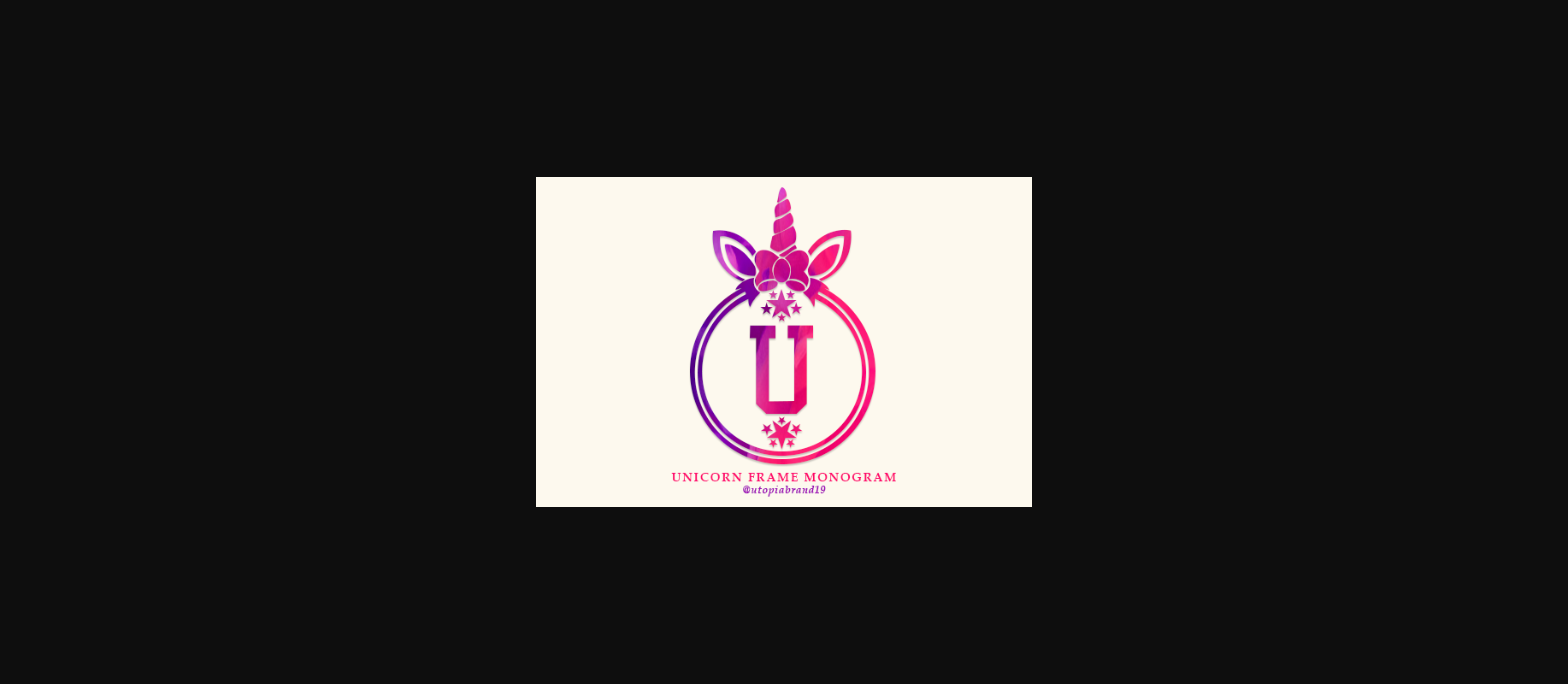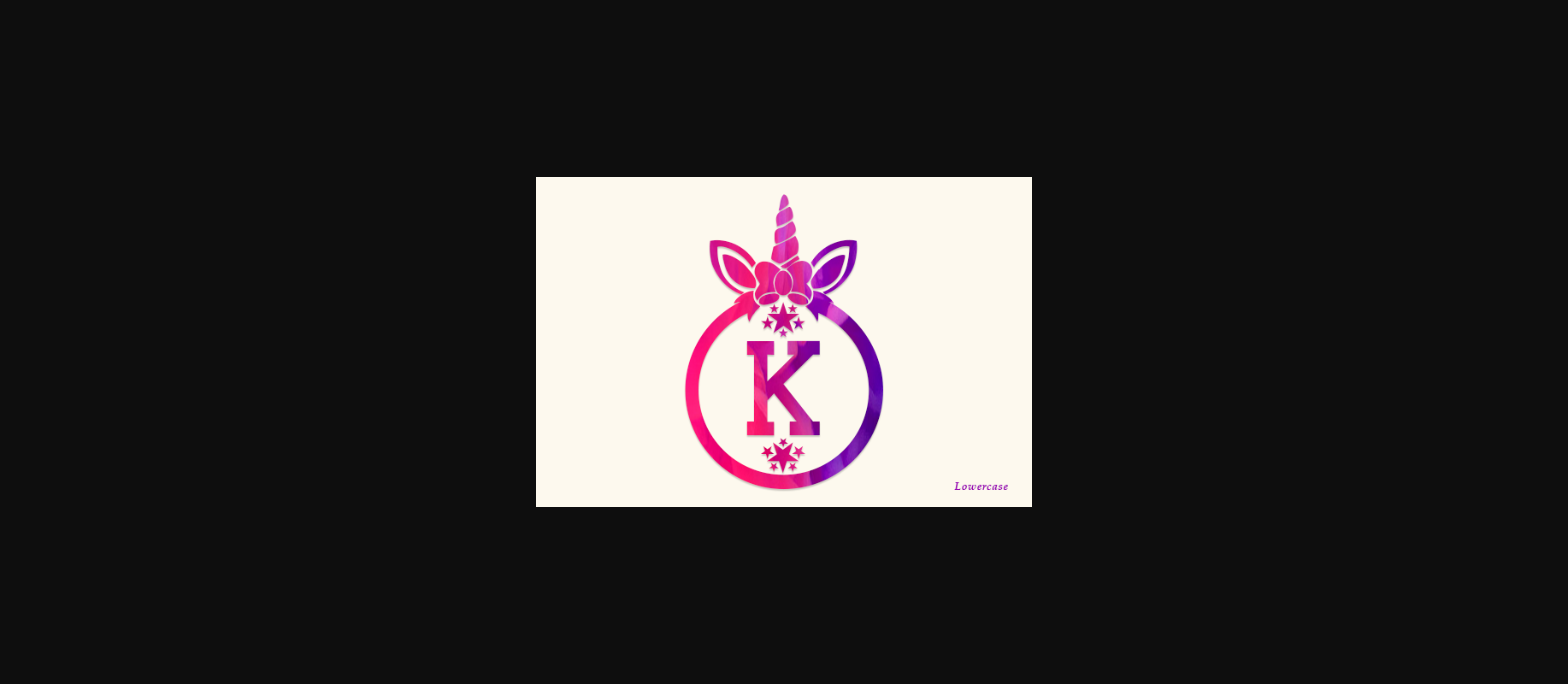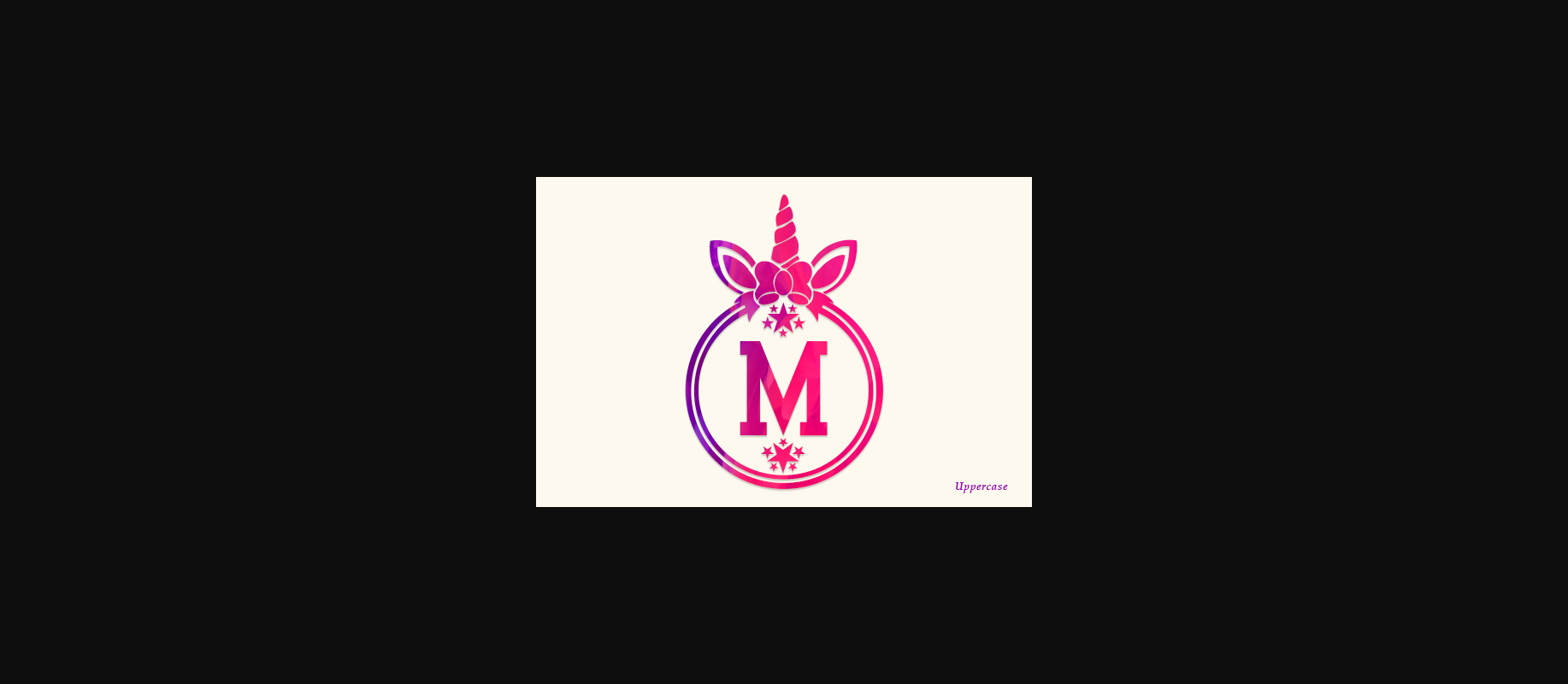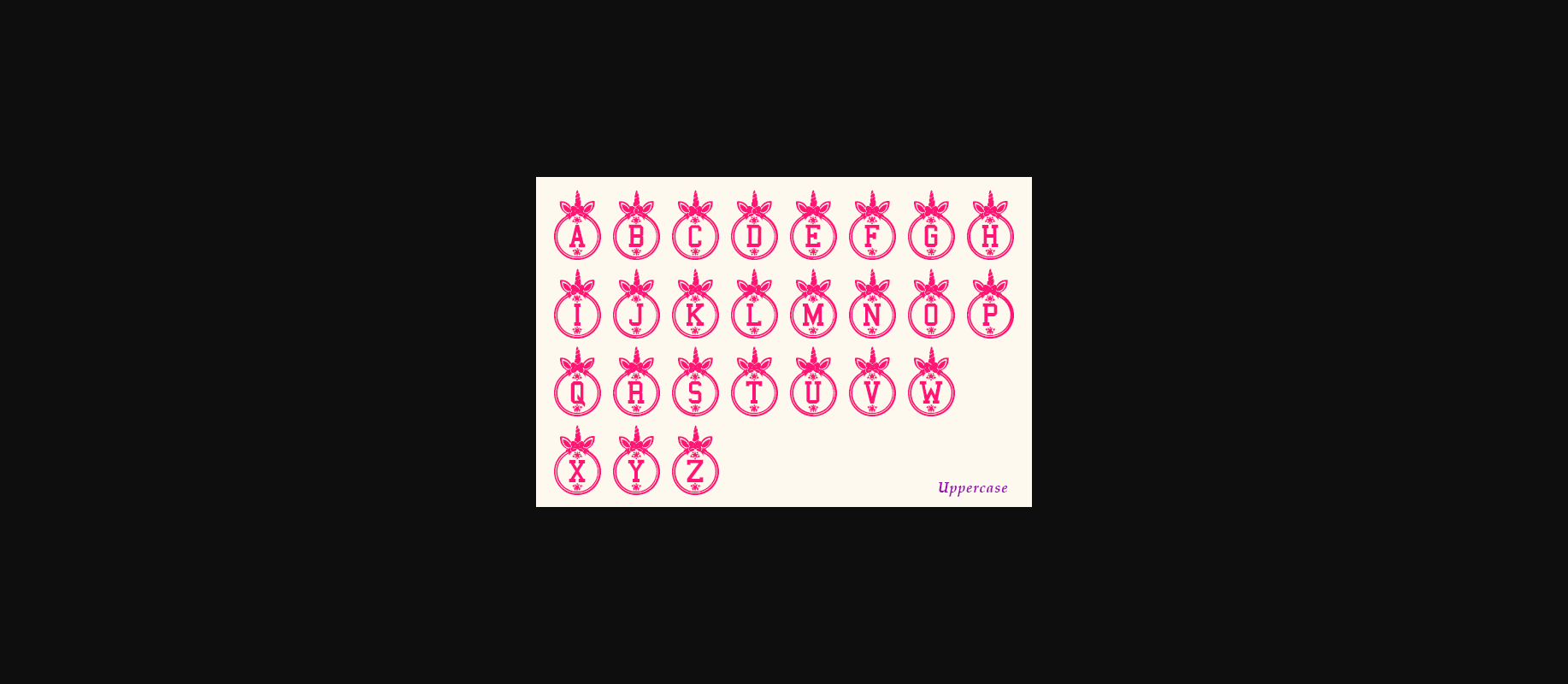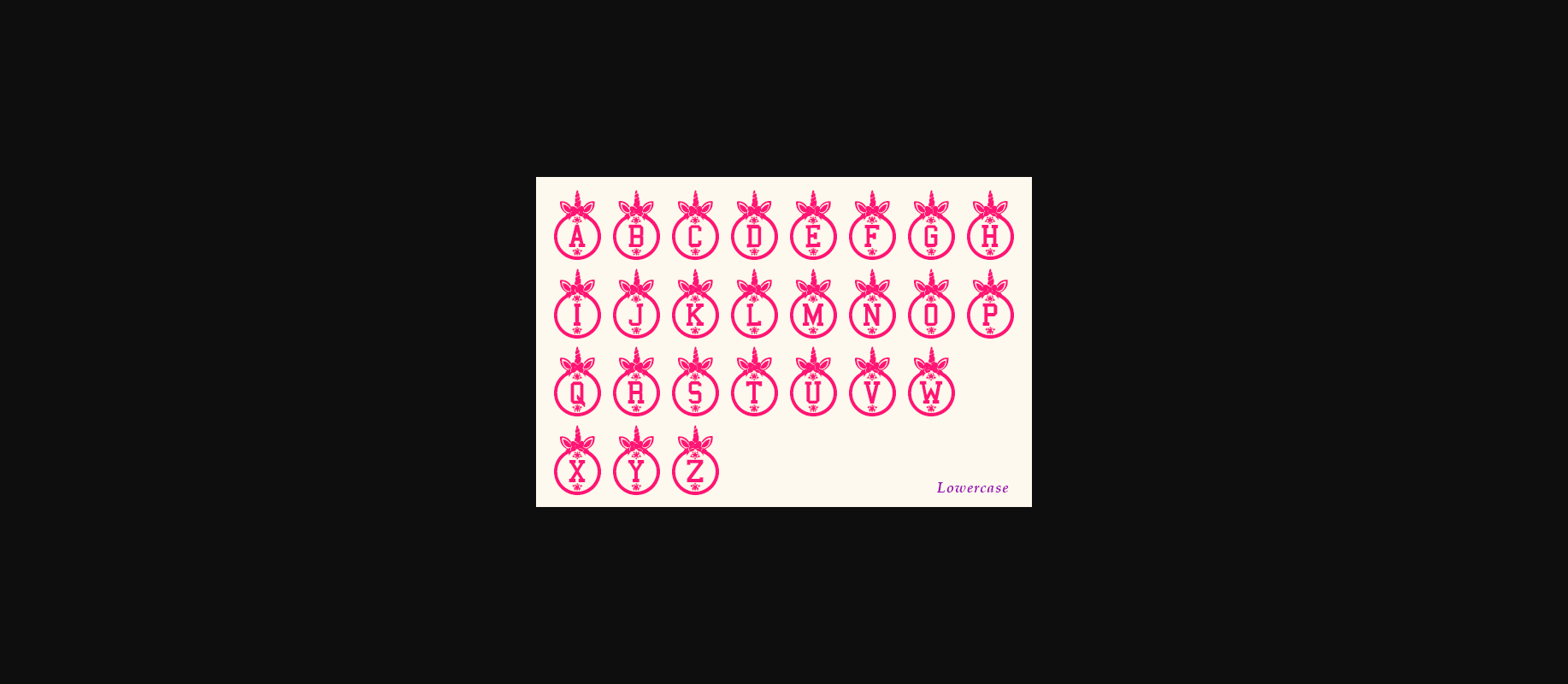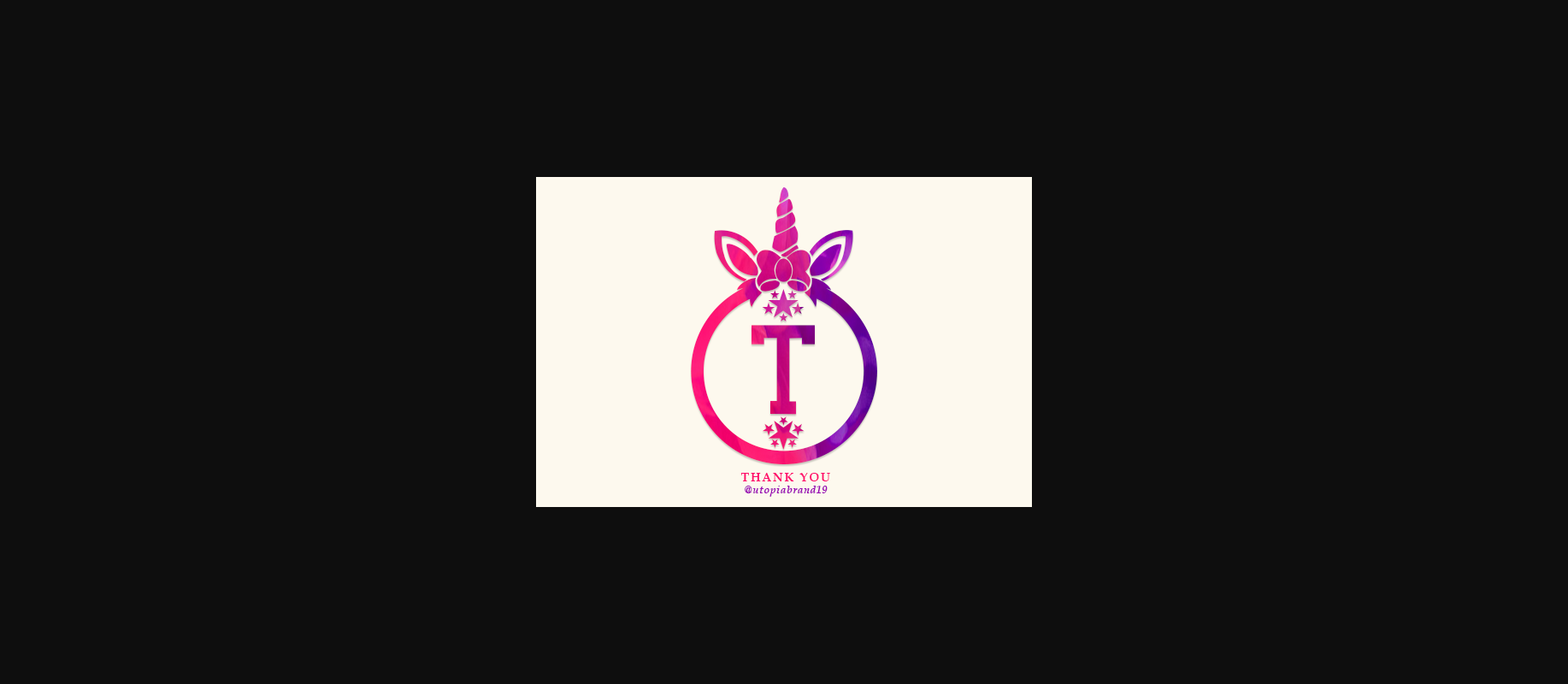
Unicorn Frame Monogram Font
About Unicorn Frame Monogram Font
Unicorn Frame Monogram is a charming decorative font. Fall in love with its authentic feel and use it to create gorgeous invitations, beautiful stationary art, eye-catching social media posts, and cute greeting cards.